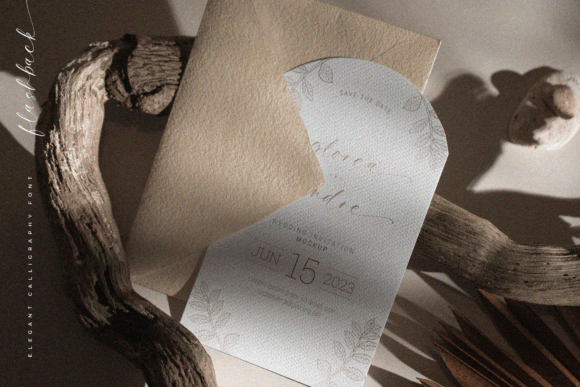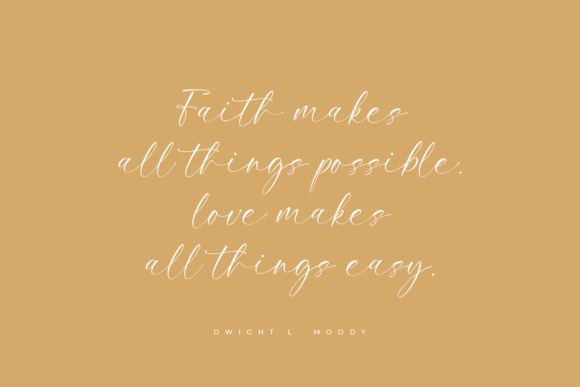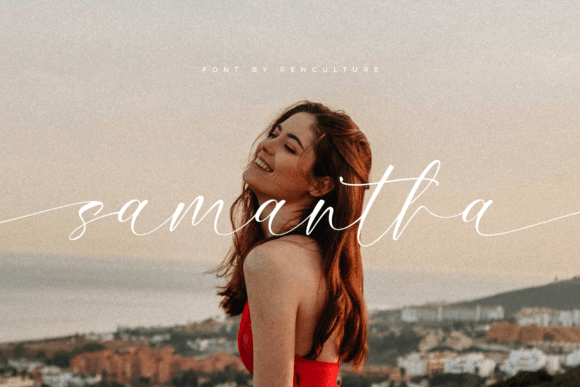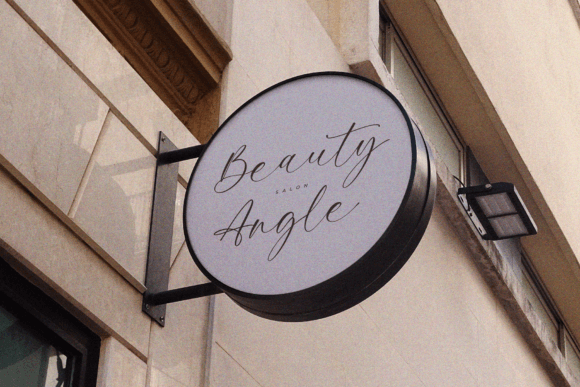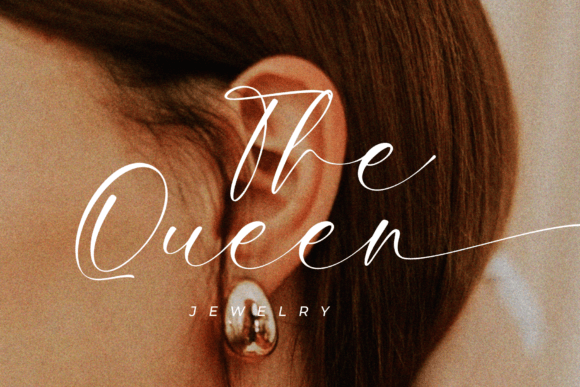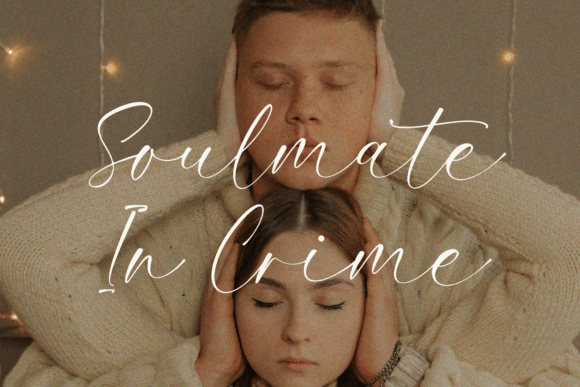
Introducing Flashback Font: A Timeless Script Calligraphy for Elegant Designs
Are you looking for a font that exudes sophistication, elegance, and a touch of nostalgia? Look no further than Flashback Font, a smooth and refined script calligraphy font that captures the essence of handwritten letters from a bygone era. With its seamless ligatures, flowing swashes, and fluid strokes, Flashback is the perfect choice for designers and crafters seeking to add a touch of classic charm to their creations.
The Inspiration Behind Flashback Font
Flashback Font is inspired by the timeless beauty of traditional calligraphy. Its design is rooted in the art of handwritten letters, with a focus on creating a sense of nostalgic elegance. The font’s creator aimed to evoke the feeling of a bygone era, where letters were written with love and care, and every stroke was a work of art. The result is a font that is both sophisticated and refined, perfect for creating memorable designs that stand the test of time.
Key Features of Flashback Font
So, what makes Flashback Font so special? Here are some of its key features:
- Seamless Ligatures: Flashback Font features seamless ligatures that create a flowing, connected look. This makes it perfect for creating elegant text and beautiful quotes.
- Flowing Swashes: The font’s flowing swashes add a touch of drama and sophistication to any design. Use them to create stunning headings, titles, and logos.
- Fluid Strokes: Flashback Font’s fluid strokes are smooth and refined, giving the font a sense of elegance and poise.
- Graceful Curves: The font’s graceful curves make it perfect for creating beautiful, flowing text that is a joy to read.
Use Cases for Flashback Font
Flashback Font is a versatile font that can be used in a variety of design projects. Here are some use cases to get you started:
- Wedding Invitations: Create stunning wedding invitations with Flashback Font. Its elegant and sophisticated design makes it perfect for formal weddings and romantic getaways.
- Elegant Logos: Use Flashback Font to create elegant logos that exude sophistication and refinement. Perfect for luxury brands, high-end services, and premium products.
- Enchanting Quotes: Create beautiful quotes and typography with Flashback Font. Its flowing strokes and seamless ligatures make it perfect for creating inspiring and thought-provoking quotes.
- Vintage Projects: Flashback Font is perfect for vintage projects that require a touch of classic charm. Use it to create stunning posters, flyers, and brochures that evoke a sense of nostalgia.
Why Choose Flashback Font?
So, why choose Flashback Font over other script calligraphy fonts? Here are some reasons to consider:
- Timeless Elegance: Flashback Font exudes timeless elegance and sophistication, making it perfect for designs that require a touch of classic charm.
- Effortless Style: The font’s fluid strokes and seamless ligatures make it easy to use and style, even for beginners.
- Versatility: Flashback Font is a versatile font that can be used in a variety of design projects, from wedding invitations to elegant logos.
- Refined Allure: The font’s refined allure makes it perfect for designs that require a touch of sophistication and elegance.
In conclusion, Flashback Font is a smooth and sophisticated script calligraphy font that is perfect for designers and crafters seeking to add a touch of classic charm to their creations. With its seamless ligatures, flowing swashes, and fluid strokes, Flashback Font captures the timeless beauty of handwritten letters from a bygone era. Whether you’re designing for modern or vintage projects, Flashback Font brings a touch of refined allure and effortless style to your designs. So, why not give it a try and let your designs travel back in time with the elegance of Flashback Font?